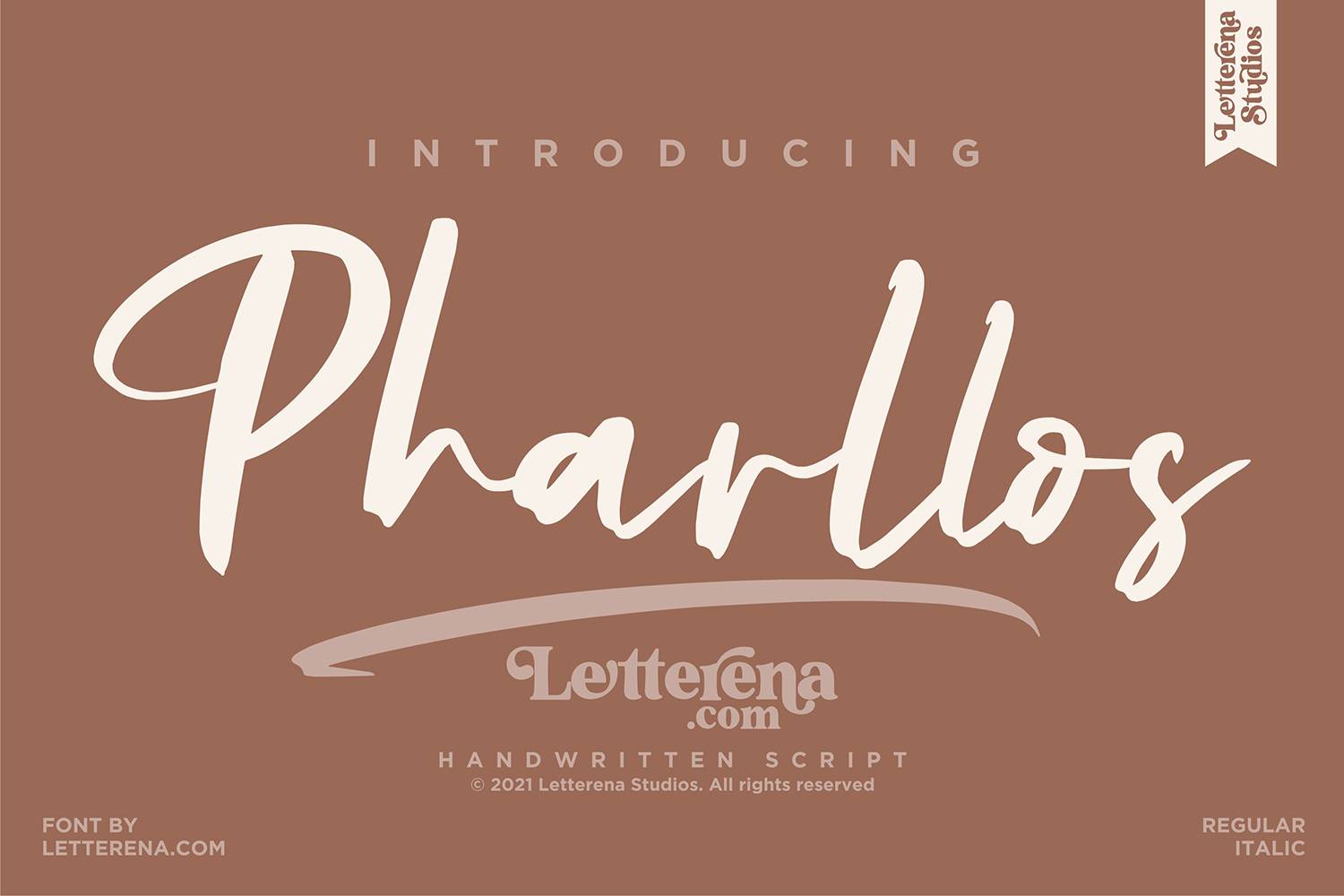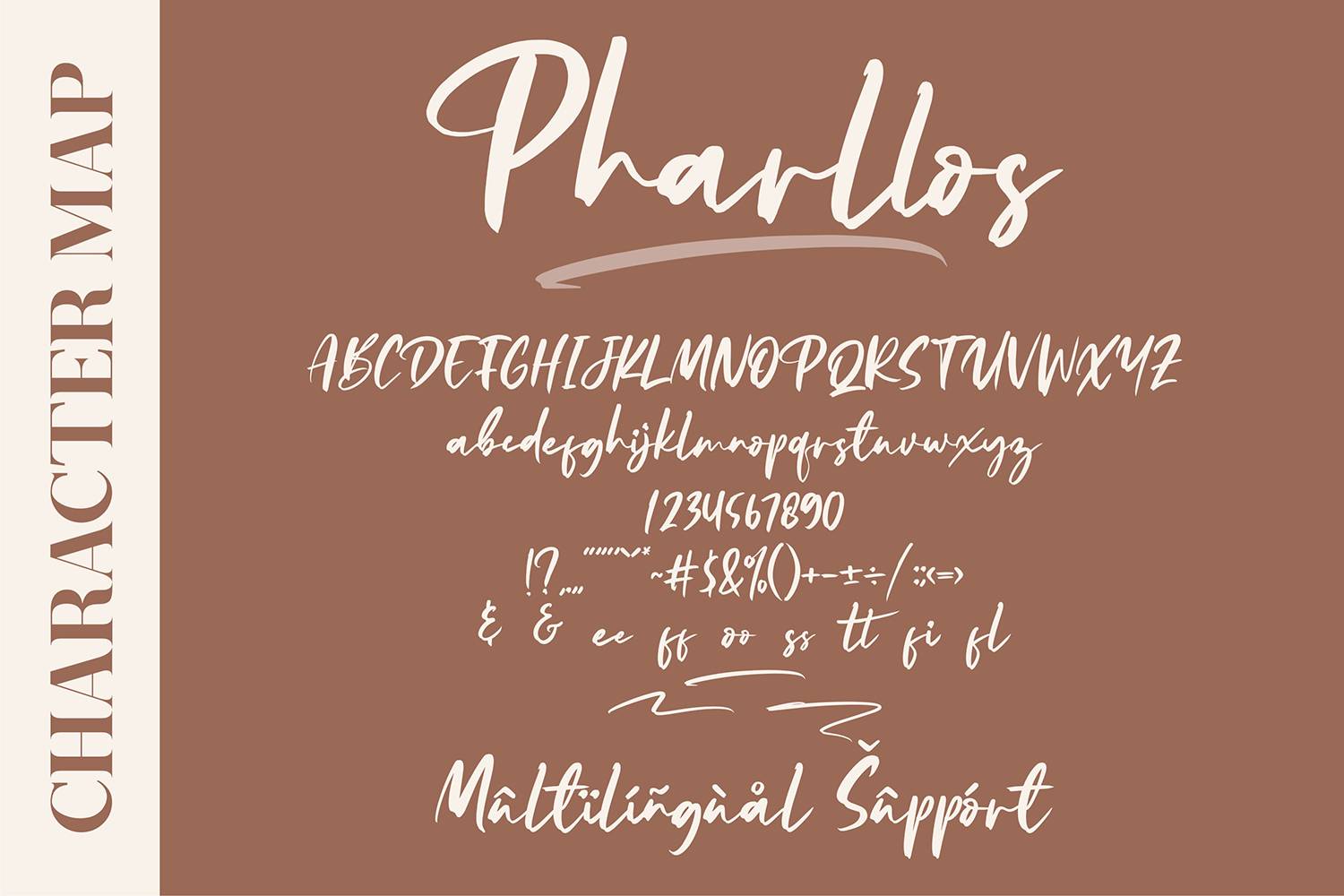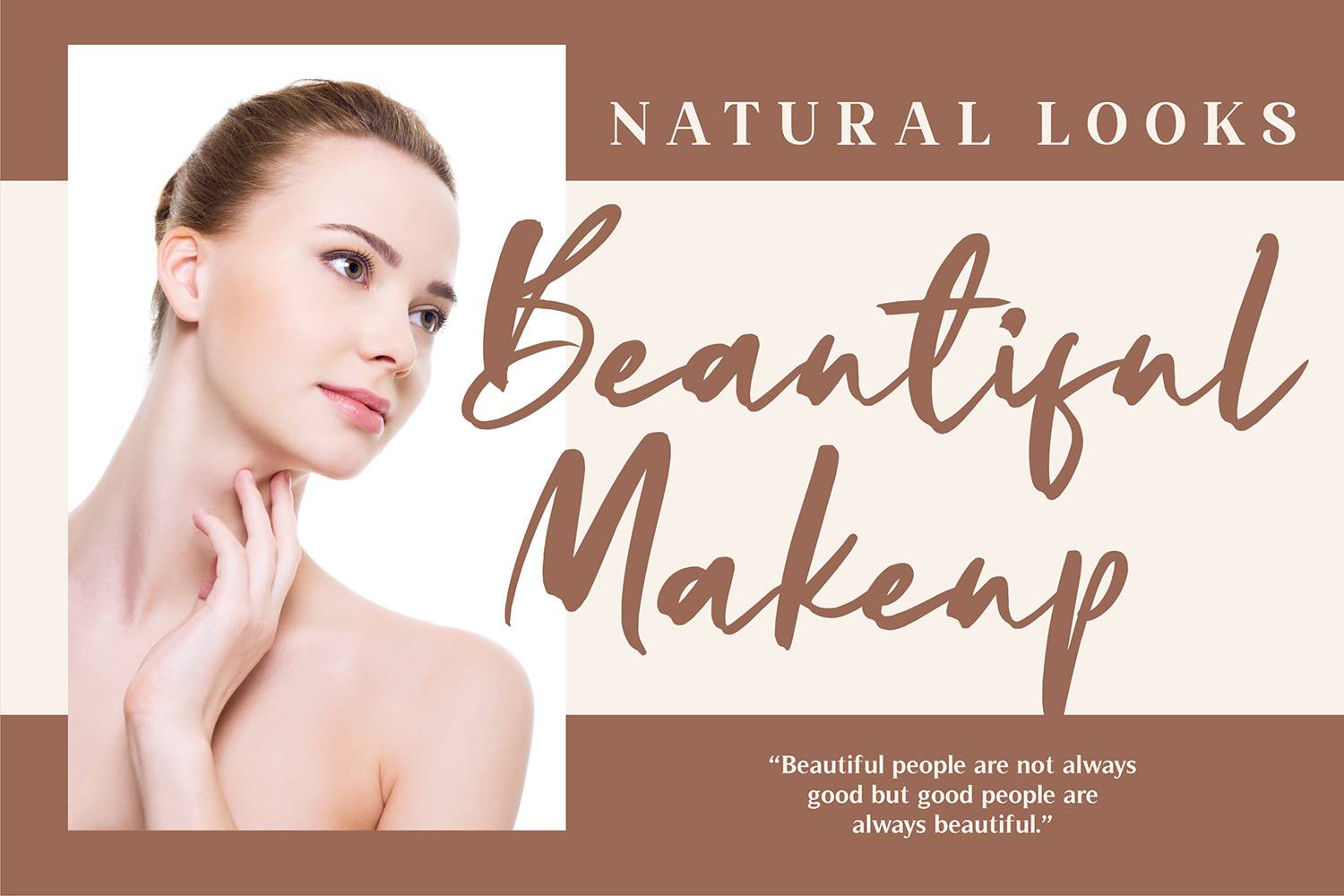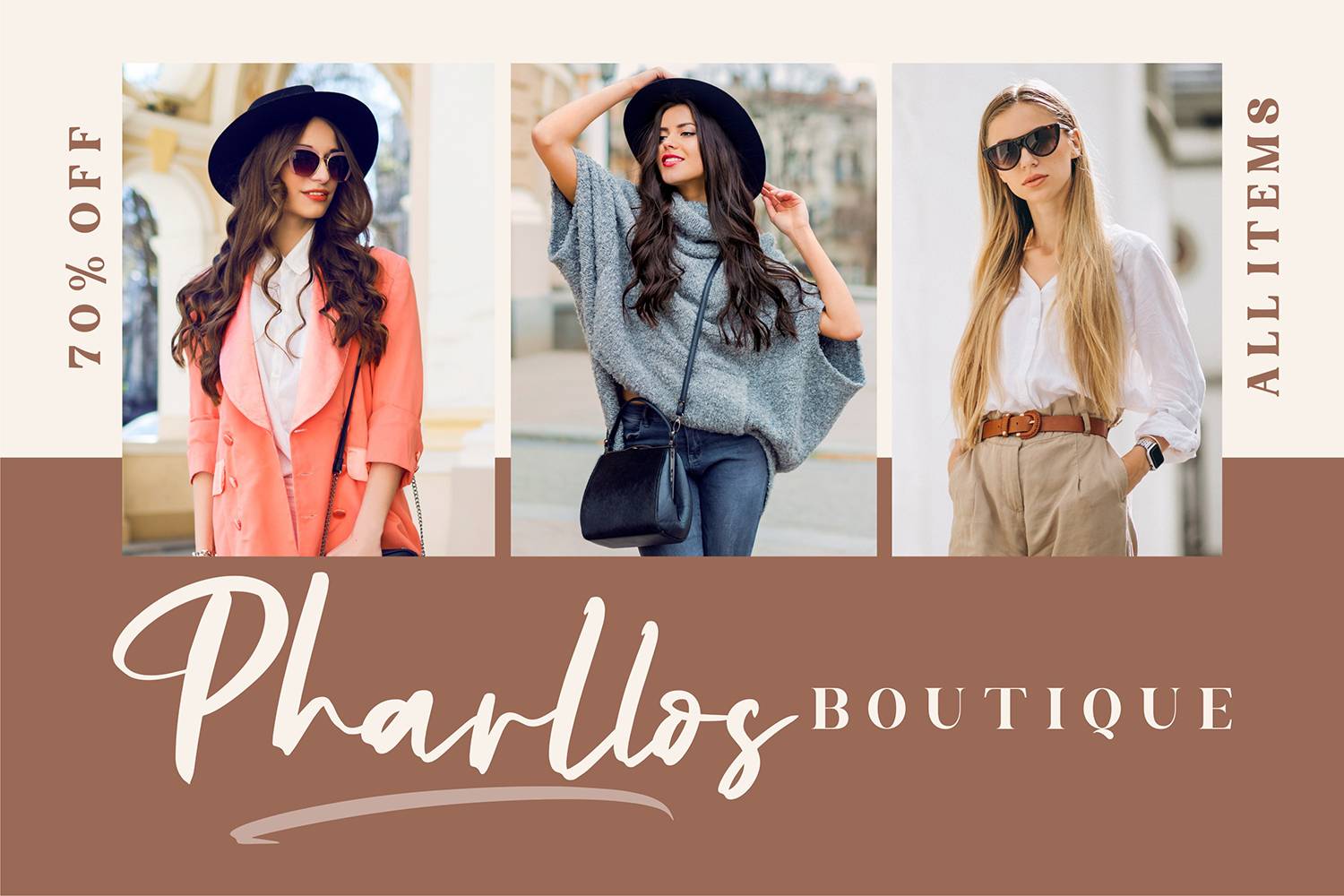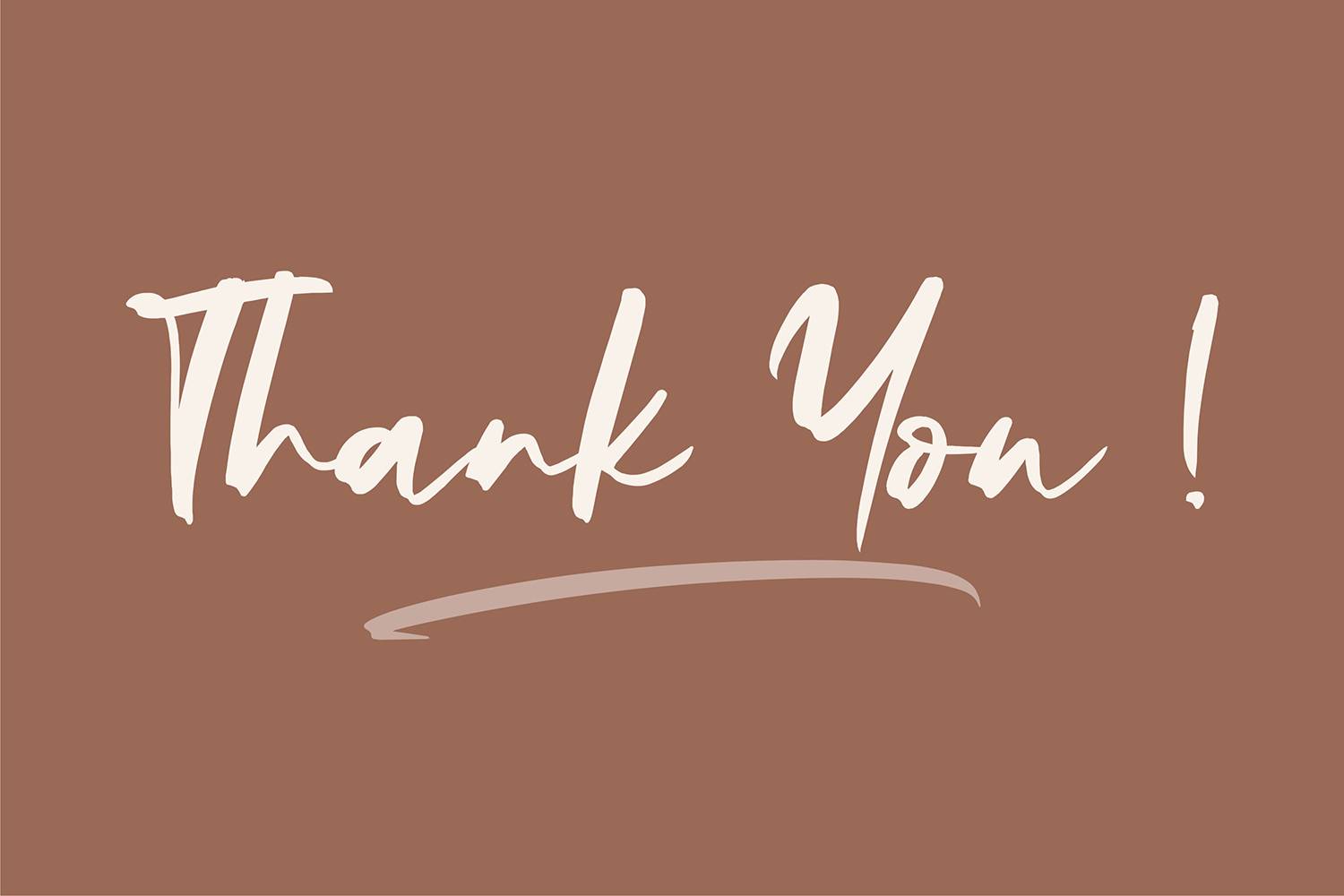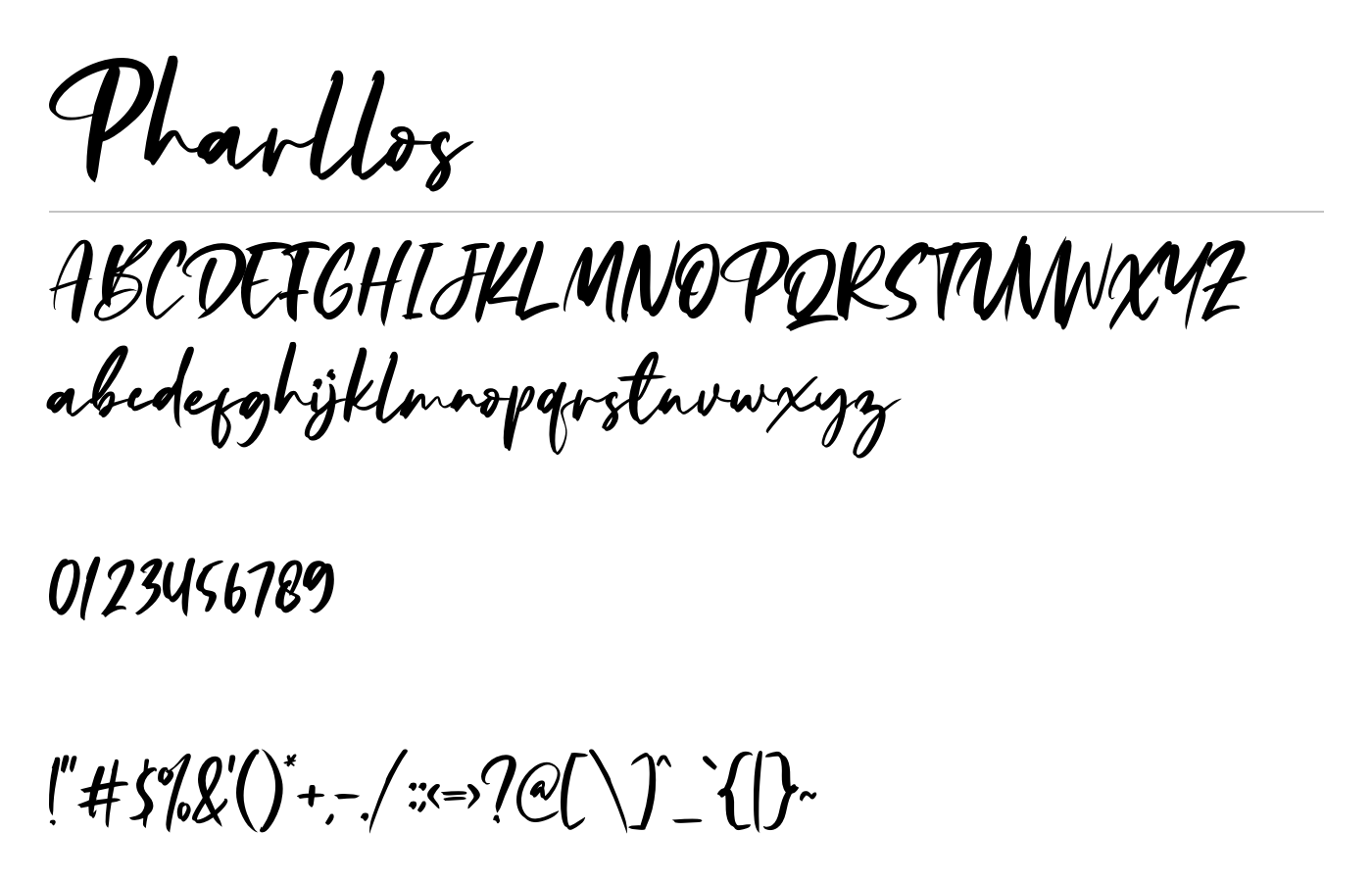
Pharllos is a lively and elegant script font with a natural, handwritten feel. Its smooth, flowing strokes and high contrast give it a modern yet personal touch, making it perfect for creative branding, invitations, and stylish headlines. This font brings a friendly sophistication that works well in fashion, lifestyle, and artistic designs needing a dynamic and approachable vibe.
Pharllos Font
About Pharllos Font